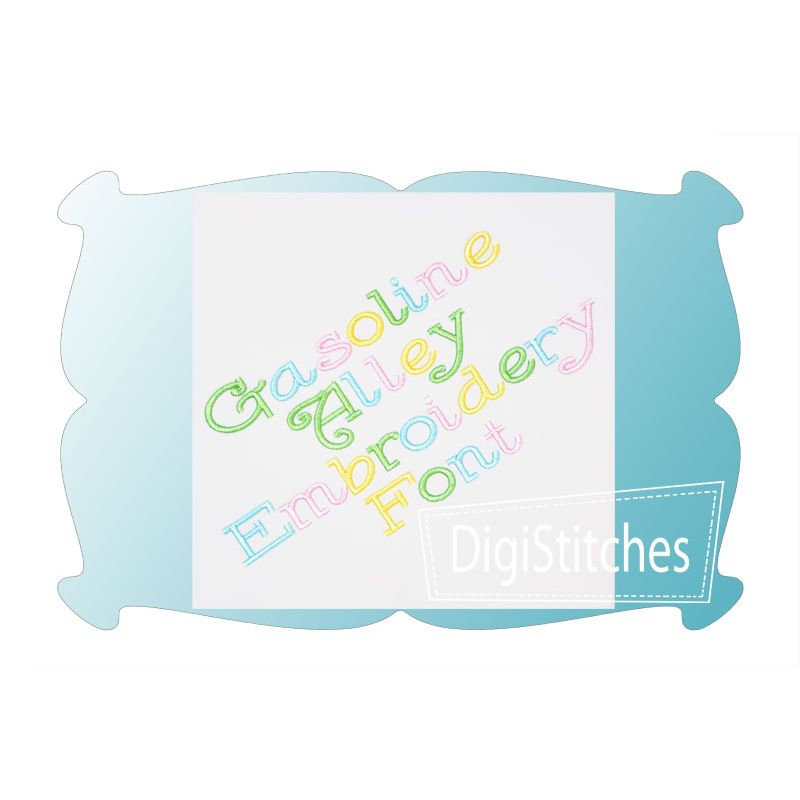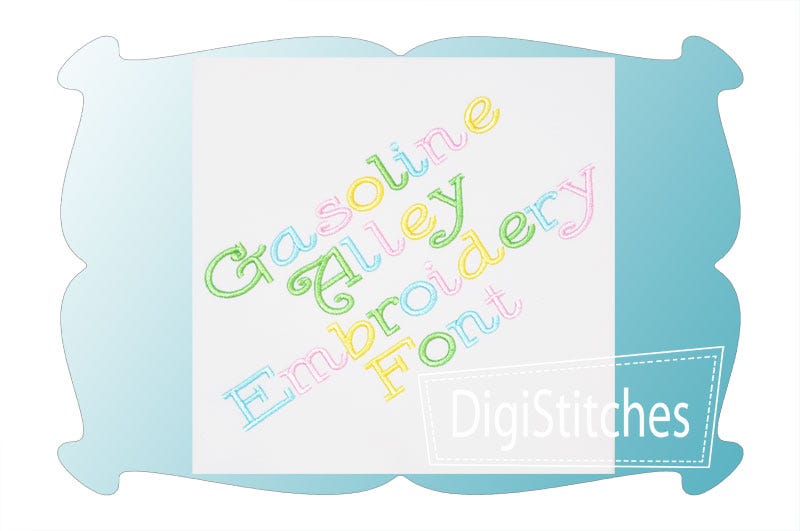
Gasoline Alley Satin Stitch Embroidery Font
Gasoline Alley Embroidery Font
Gasoline Alley embroidery font features super bold letters that really stand out on t-shirts and projects.
This slightly curly font offers a stylish look that girls will love!
Upper case letters A thru Z, lower case letters a thru z, numbers 0-9, punctuation as shown.